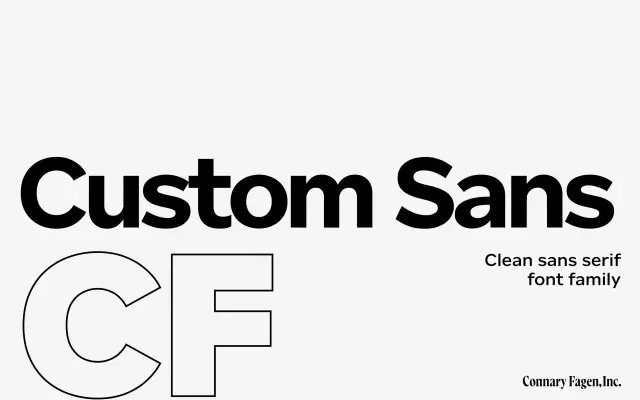
Custom Sans CF
A geometric sans in nine weights with matching italics, built for legibility across sizes and suited to branding, packaging and interface work.
Even rhythm, open shapes and a large x-height give this workhorse geometric a reliable presence at text sizes without sacrificing usefulness at display scale. Nine weights run from Hairline to Black, each with a matching italic, and the family is also available as two variable fonts. Language support covers a broad range of Latin-script languages including Turkish, Polish and Vietnamese-adjacent extended Latin characters.
The foundry explicitly describes it as a geometric sans serif with a large x-height, even rhythm and open shapes, characteristic of the geometric tradition.